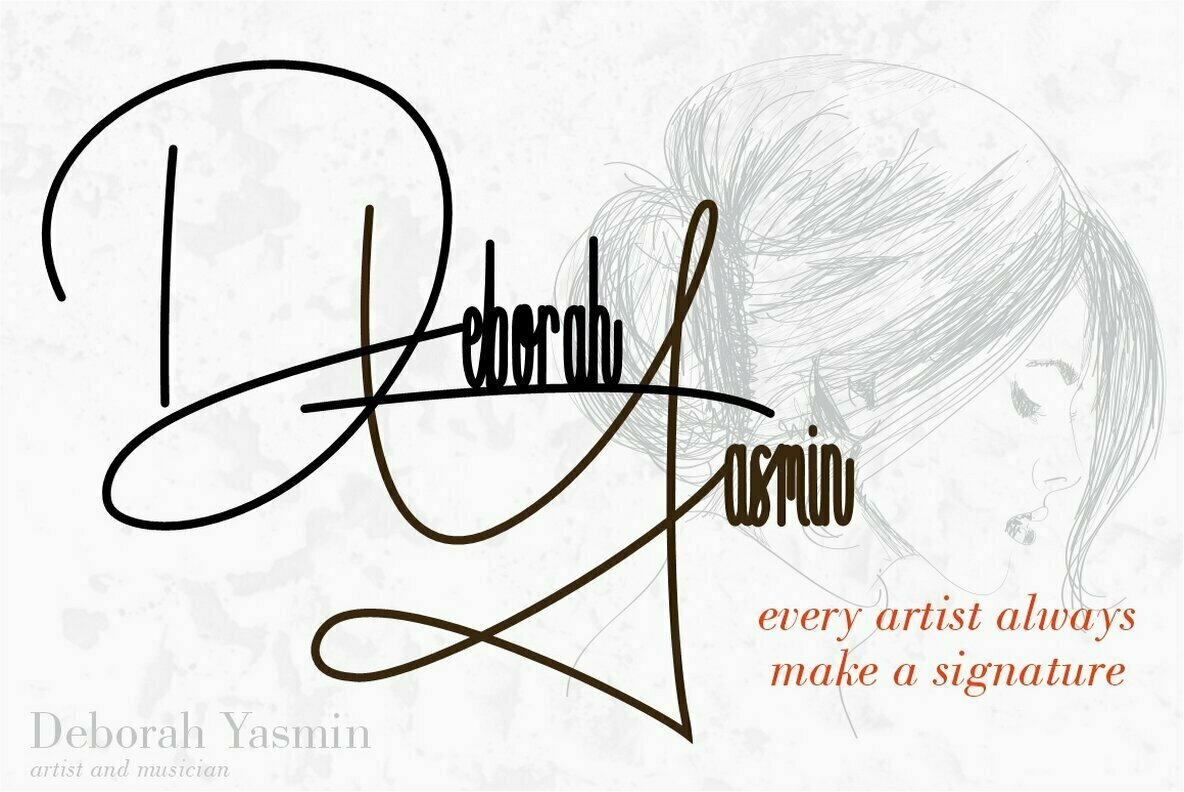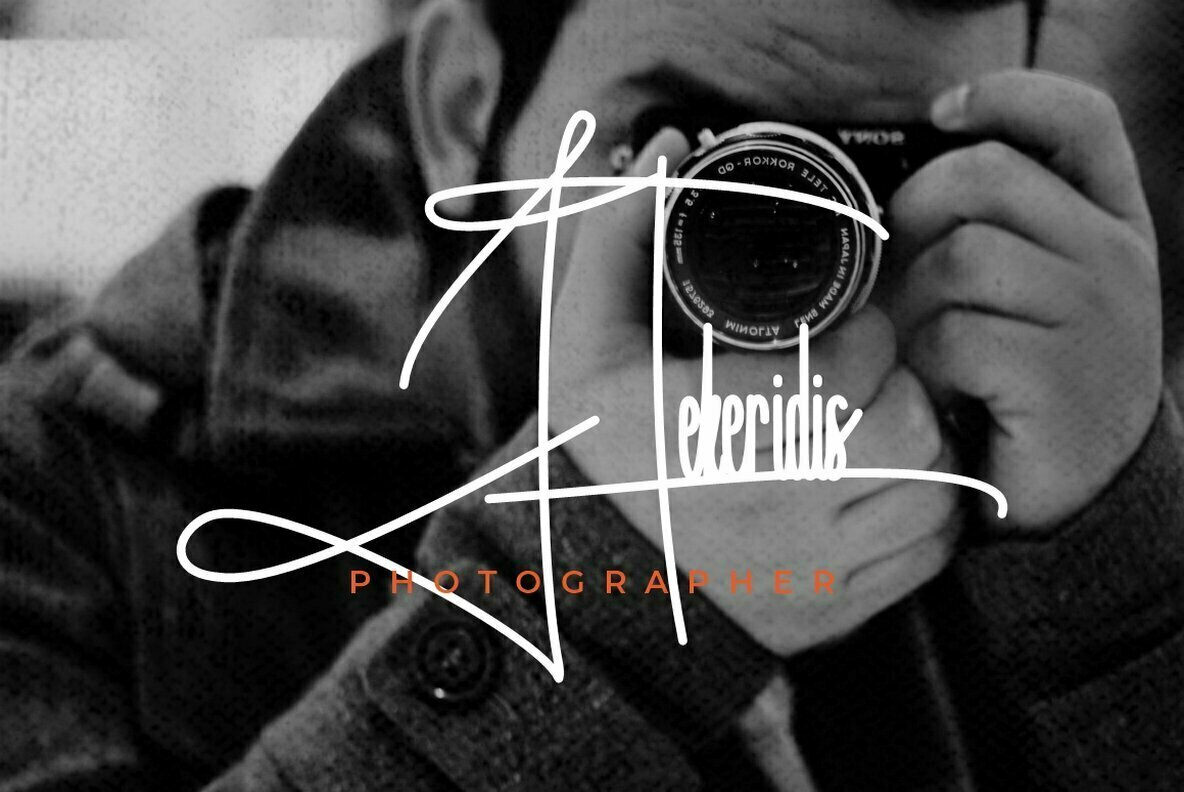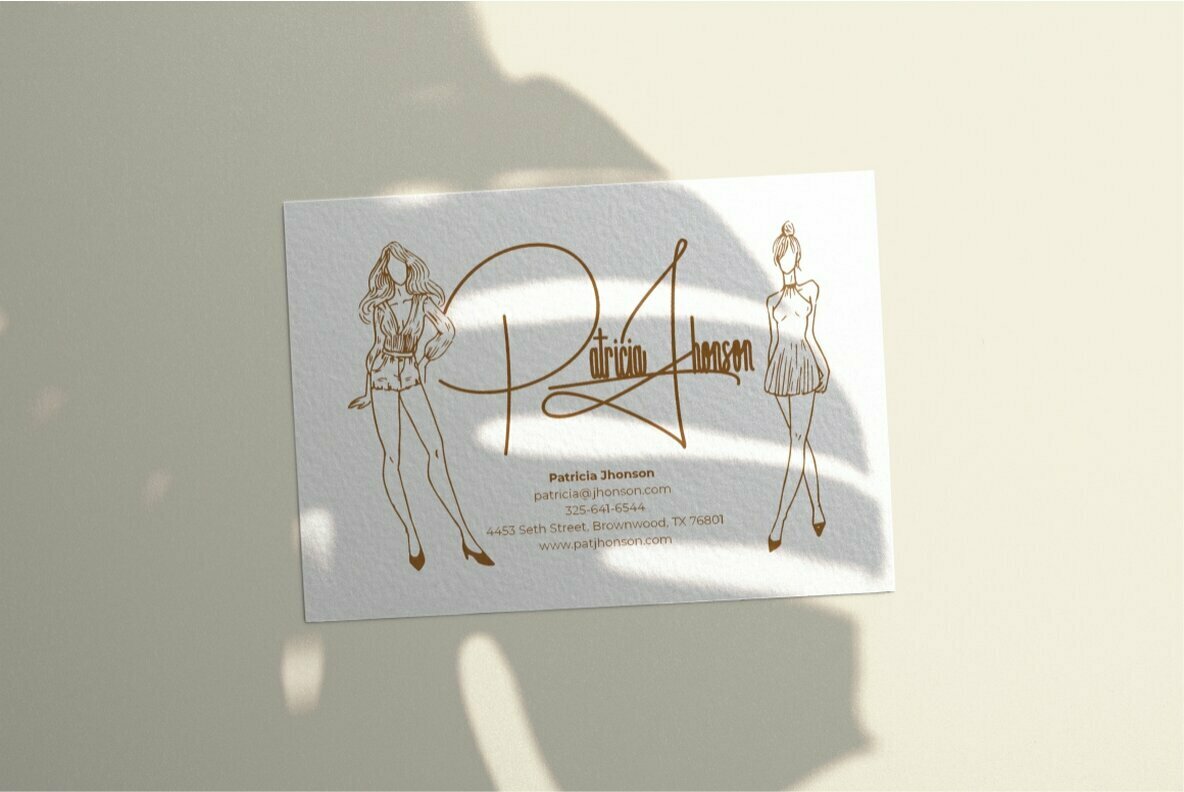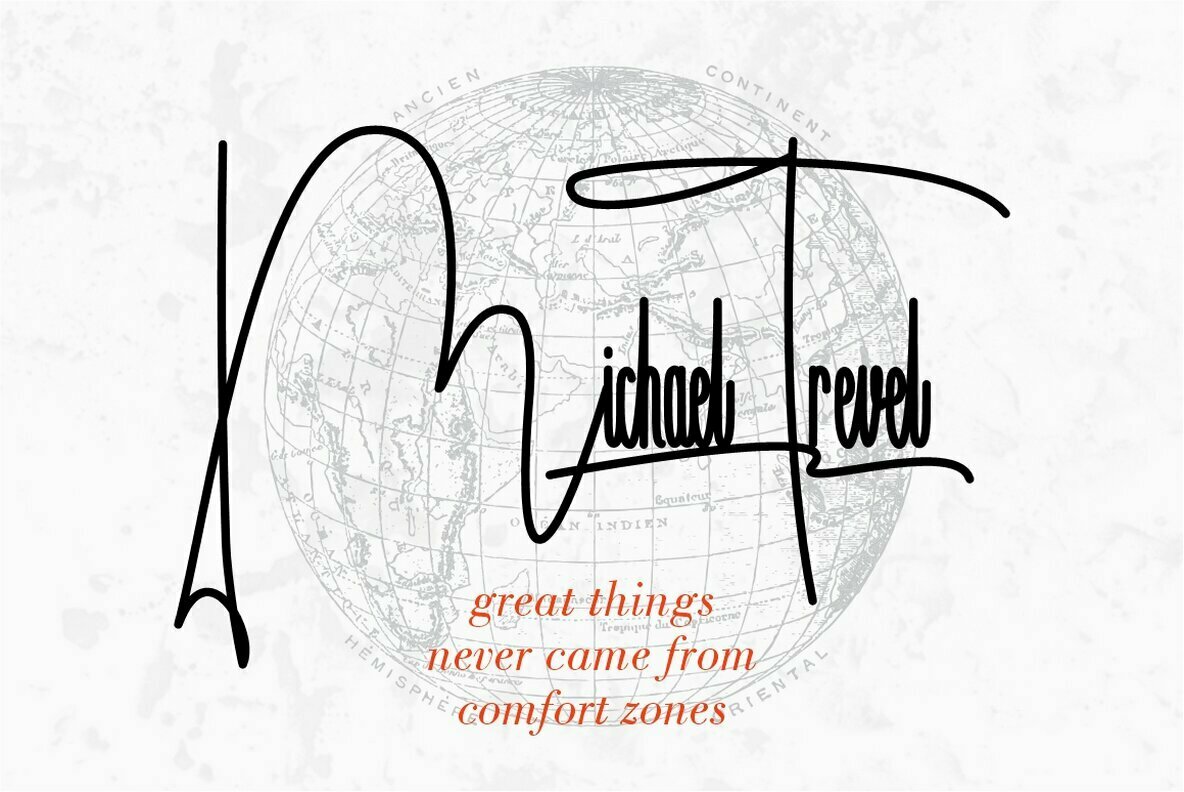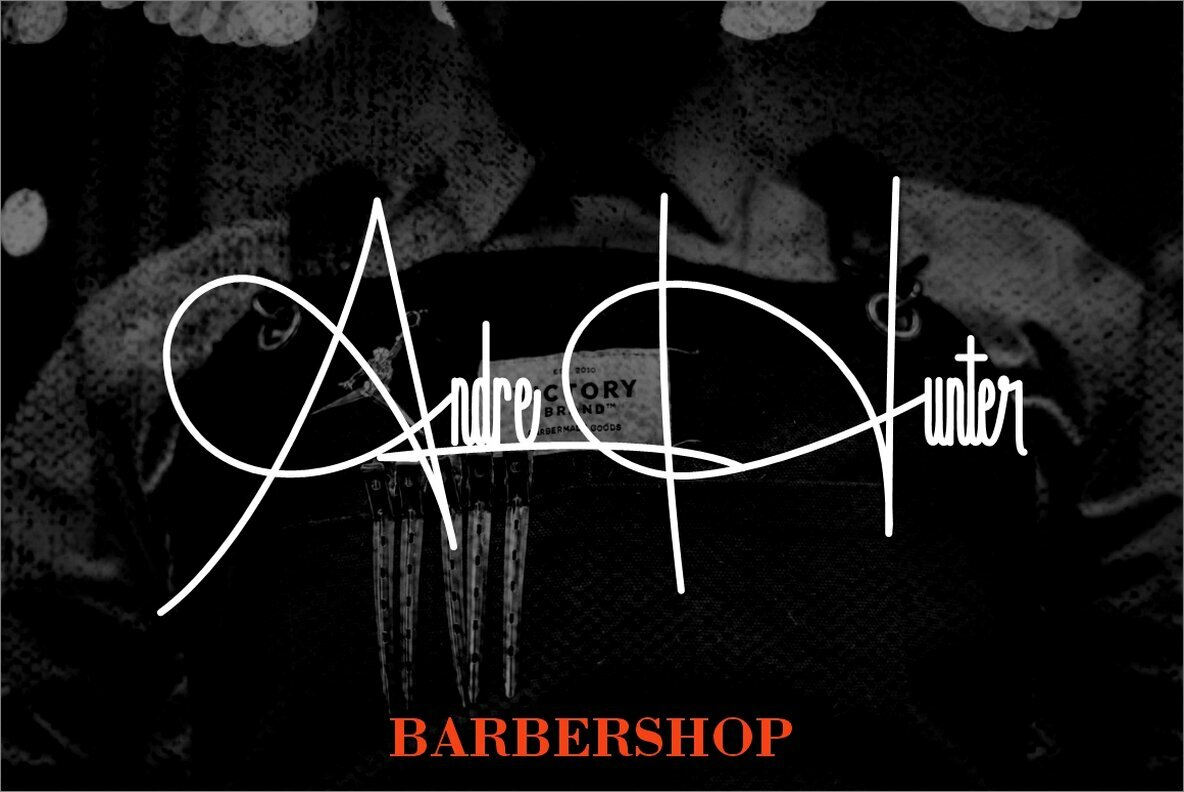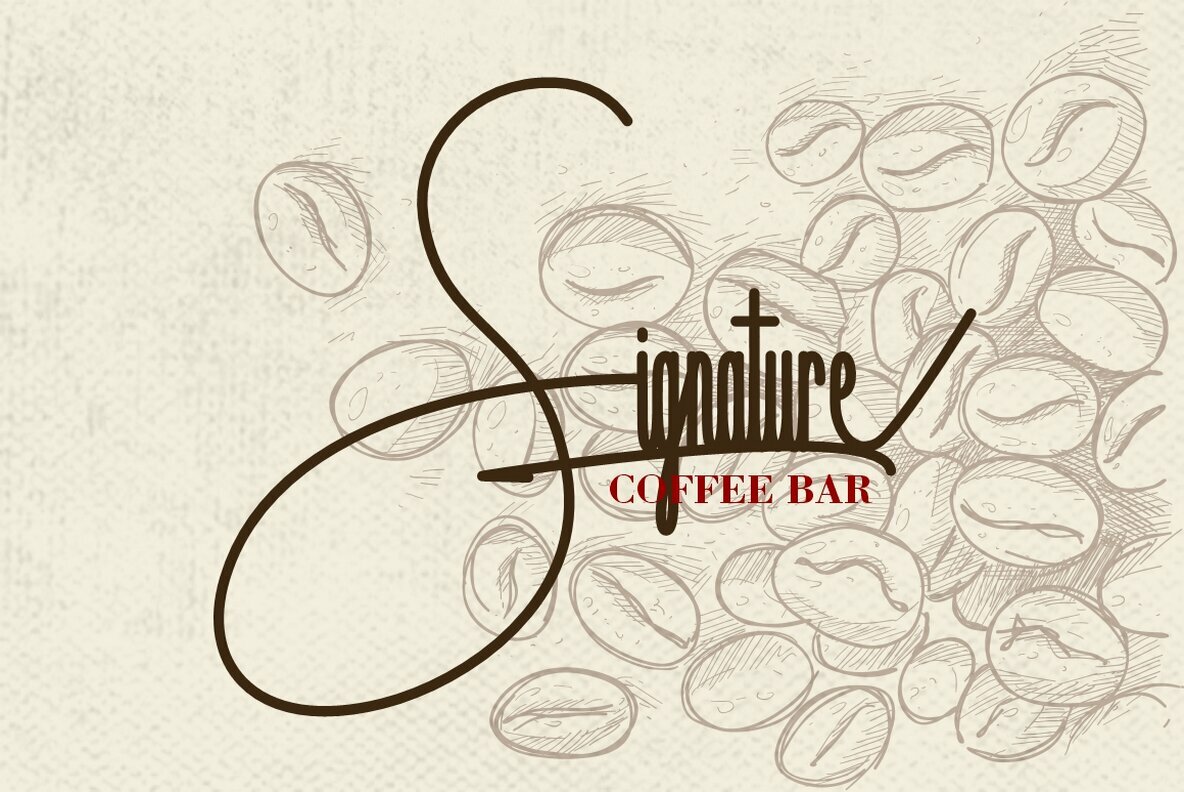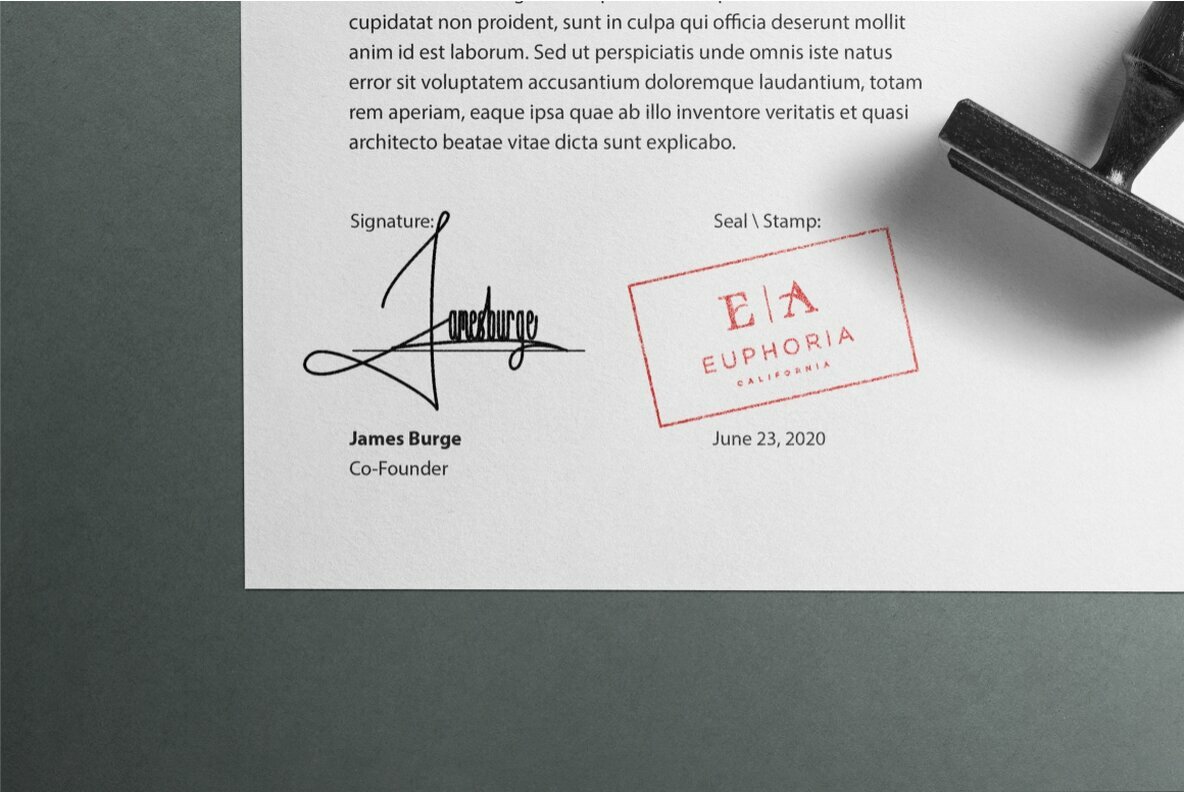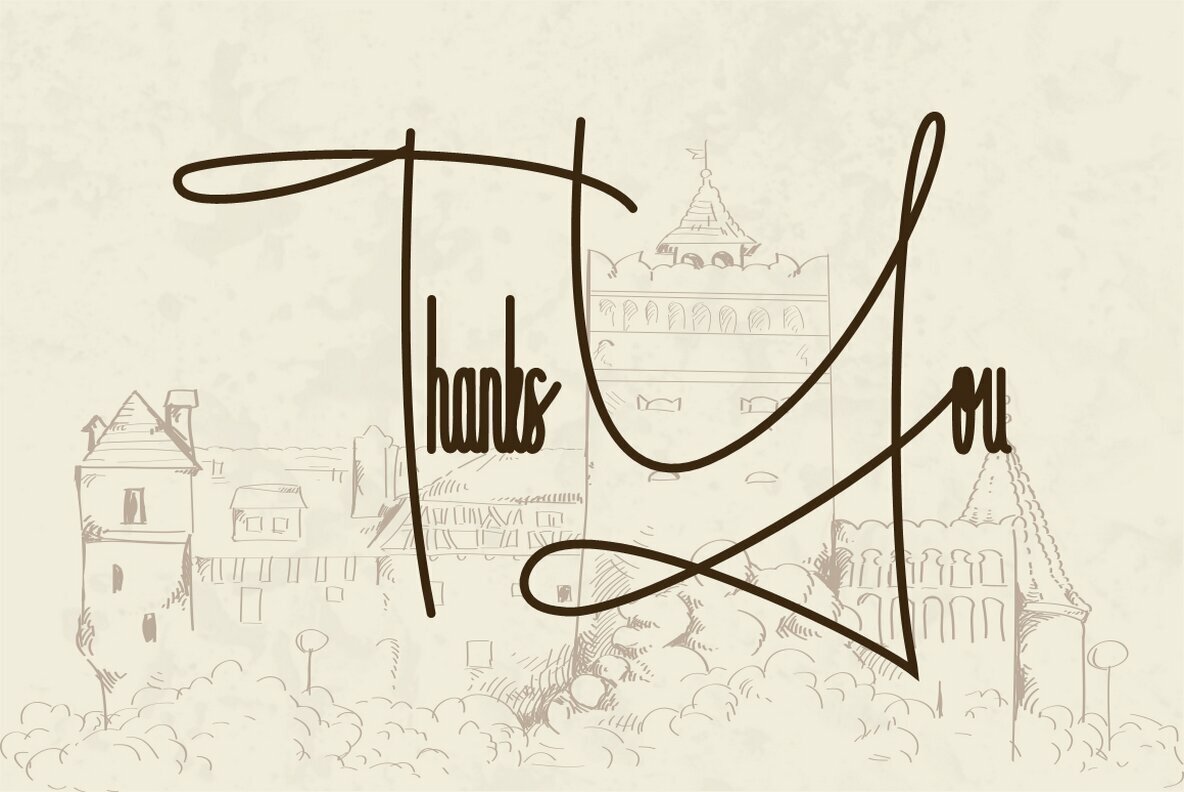
Handitype Font
Handitype
The Handitype font offers a distinctive approach to signature-style typography, blending the authenticity of handwritten signatures with a unique vertical emphasis. Unlike typical elongated script fonts, Handitype features shorter, taller letterforms that encapsulate both individuality and elegance. Perfectly suited for a range of design applications, Handitype excels in projects involving signatures, headings, covers, branding, and logos. Its charming flexibility makes it ideal for personal and professional contexts, offering a fresh perspective on traditional signature fonts.Handitype: Realistic Signature-Inspired Fonts